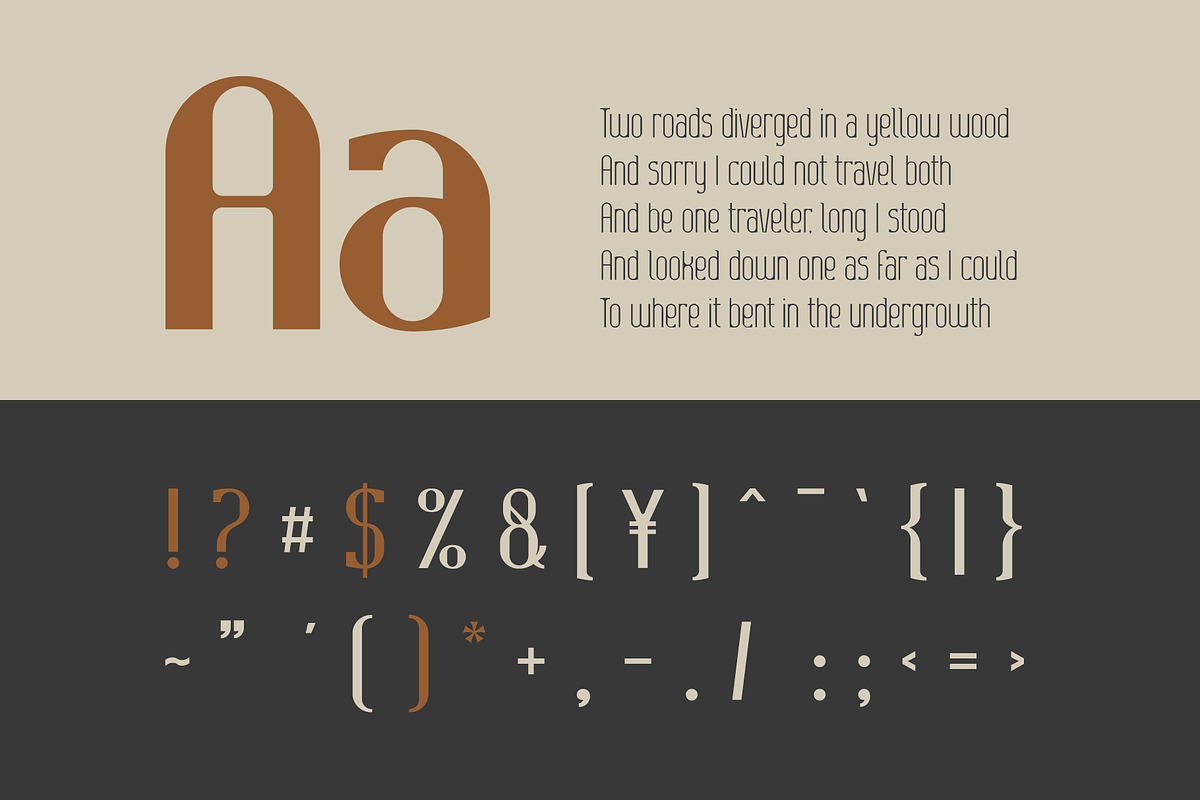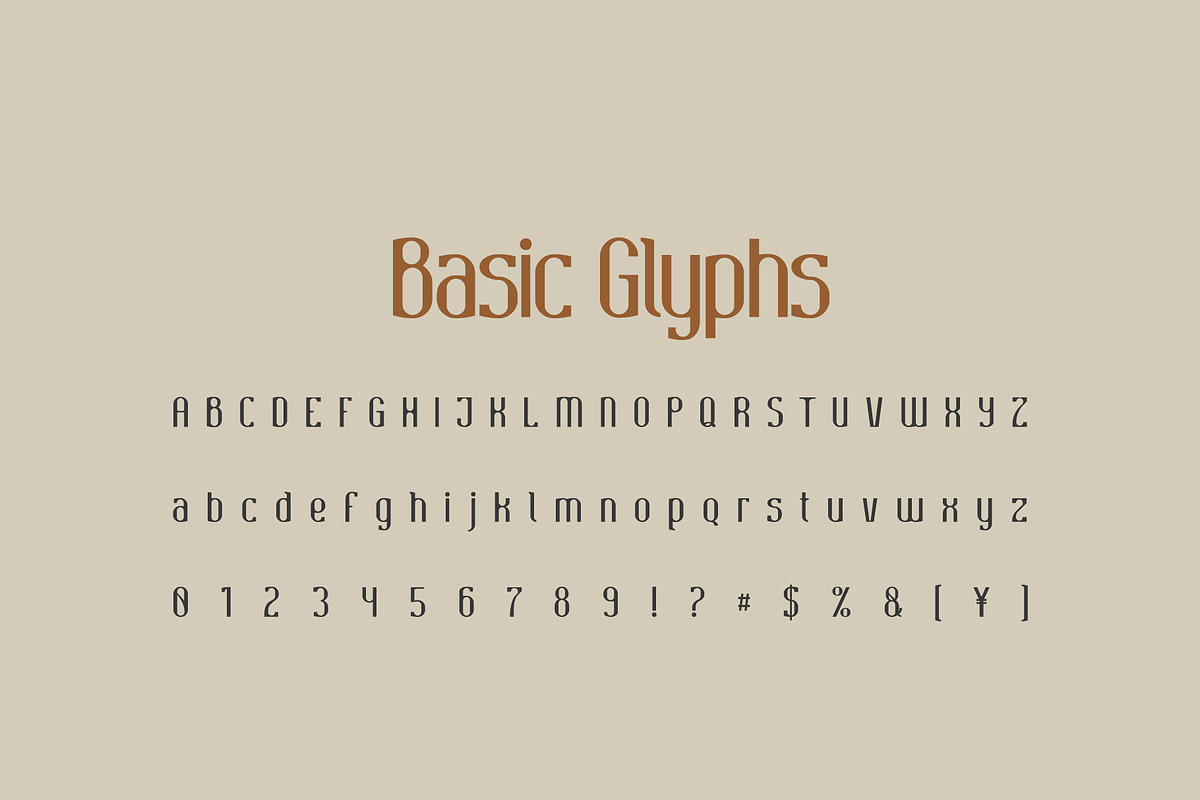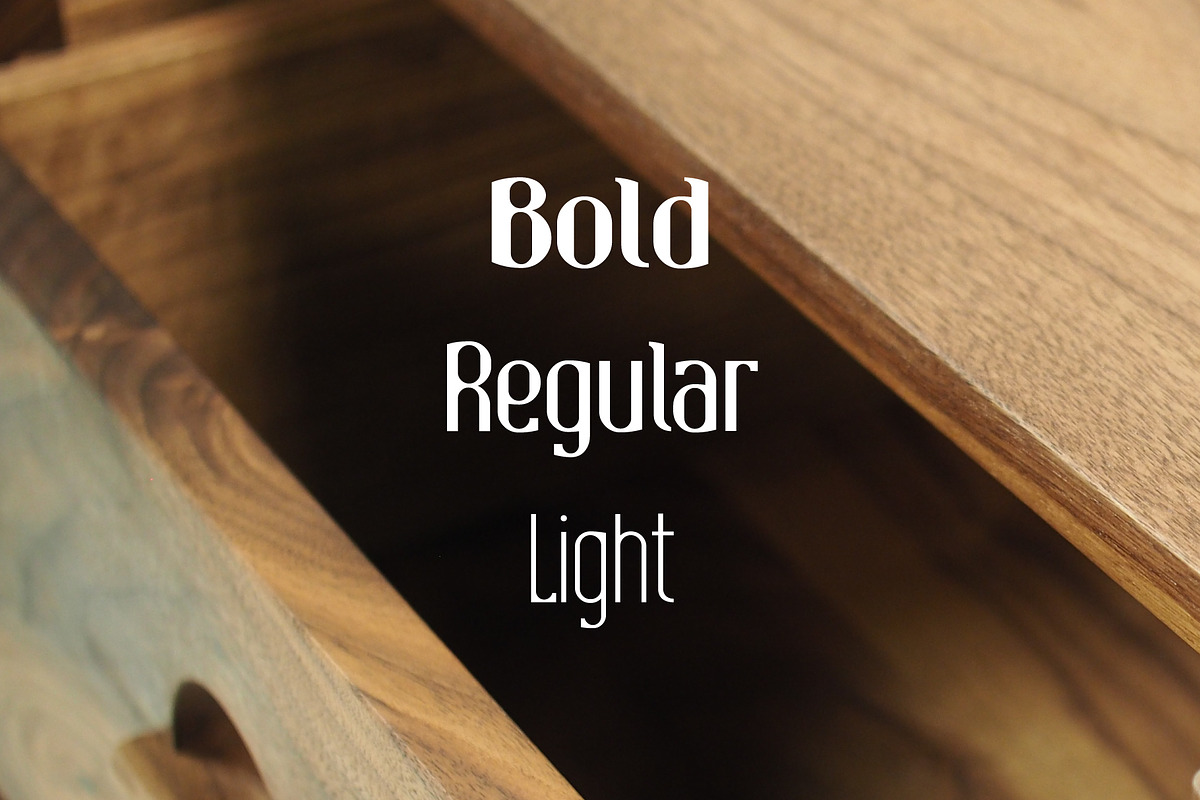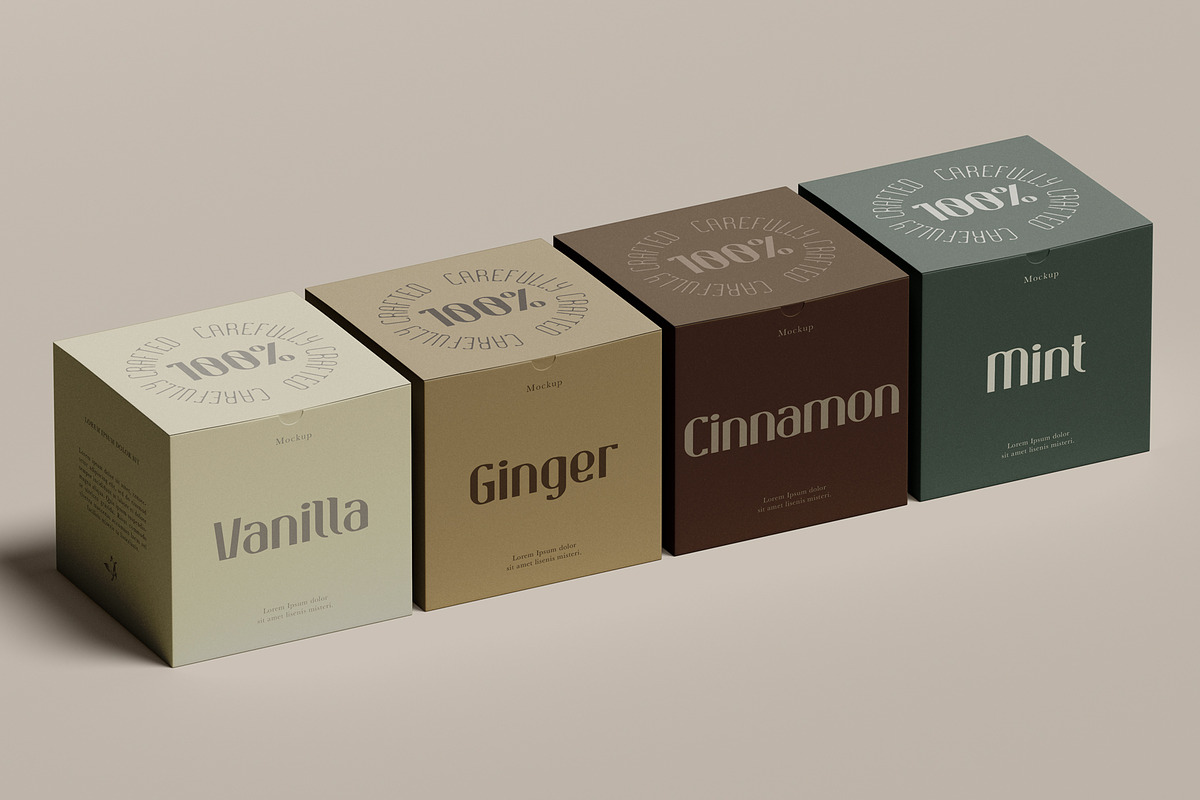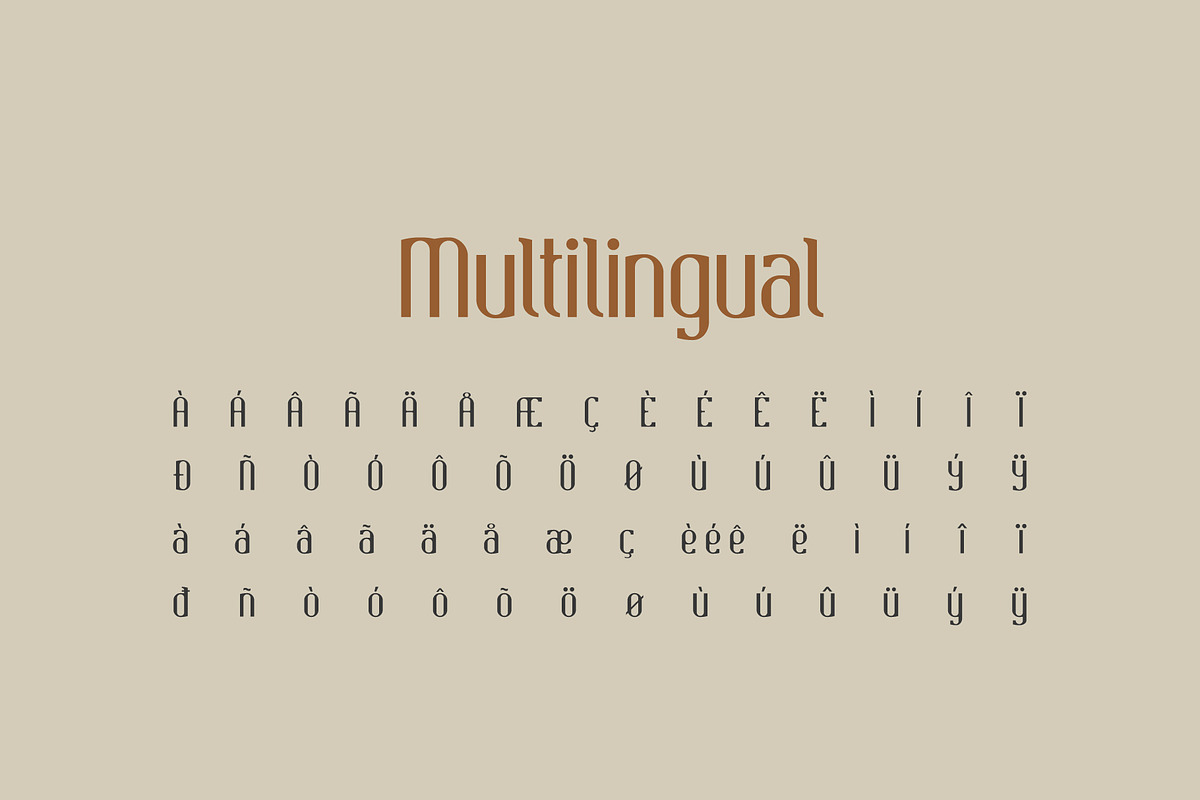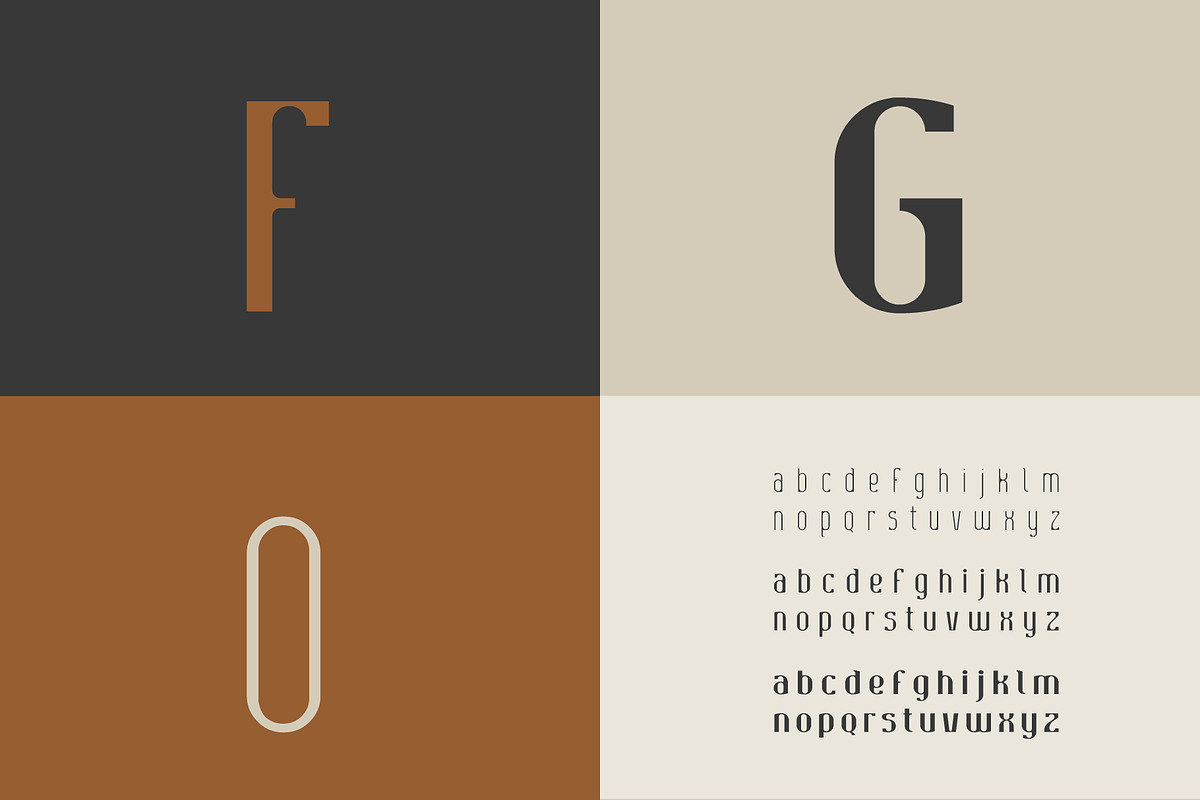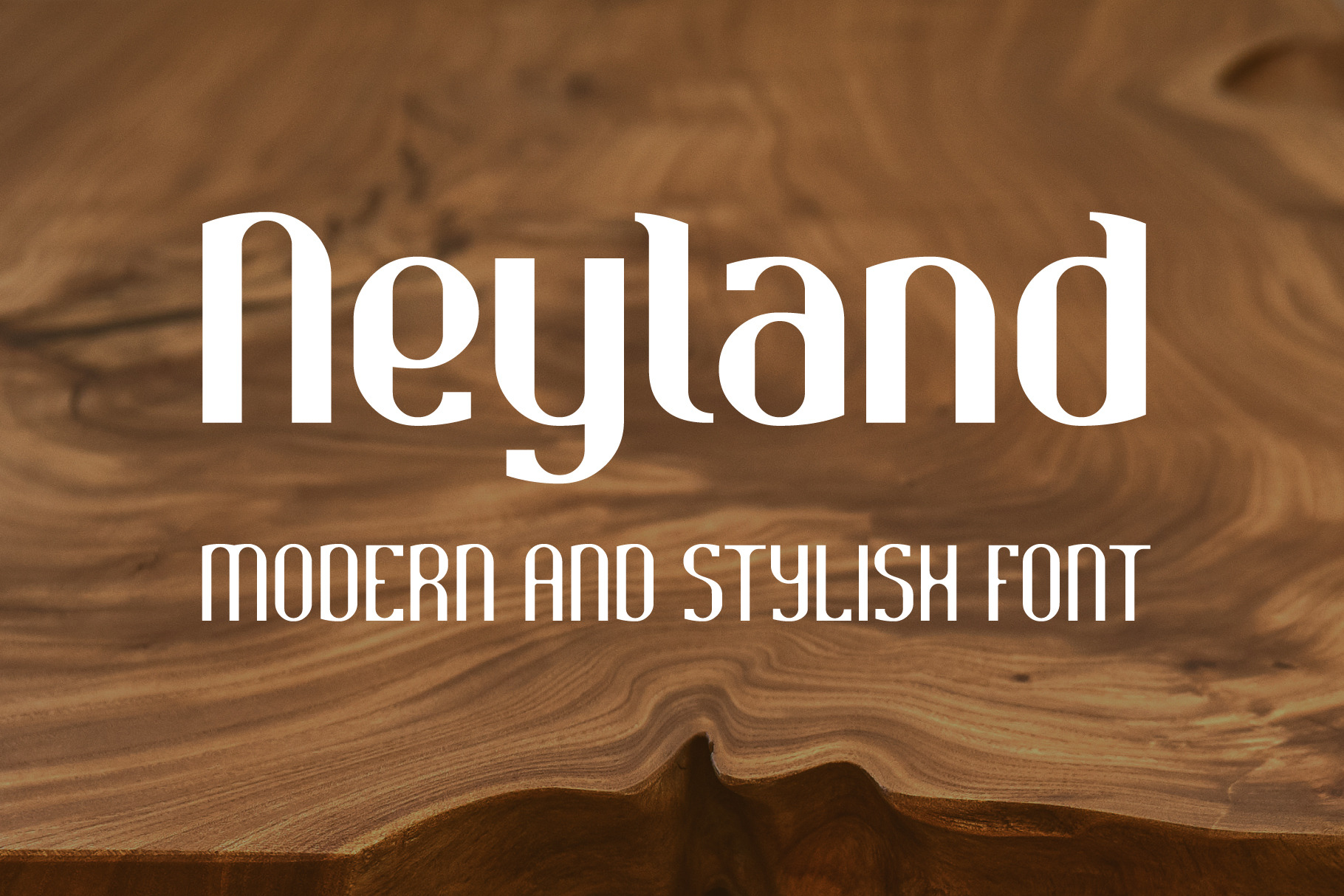
Neyland Vintage Font Family
Neyland - modern yet classic typeface that has own unique look. Neyland is perfectly suitable for an elegant logo, book or title design, fashion brand, magazine, clothes, lettering, quotes, and so much more.